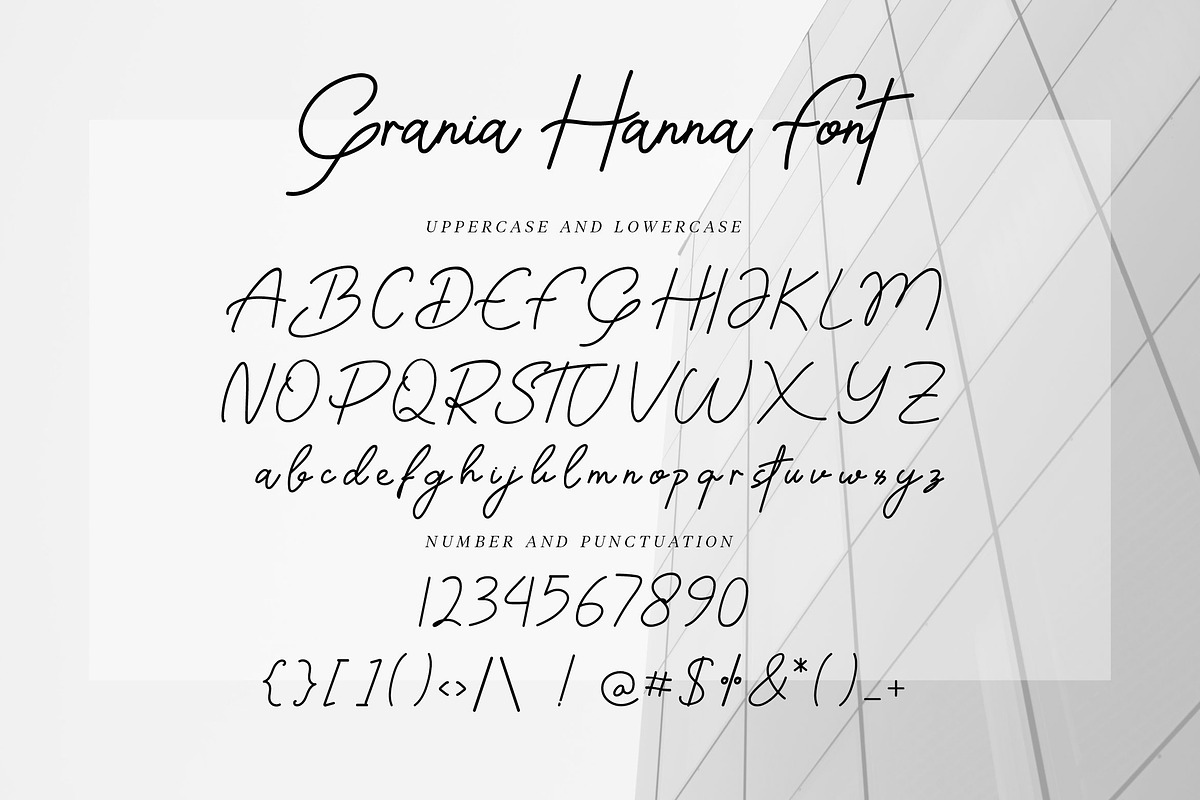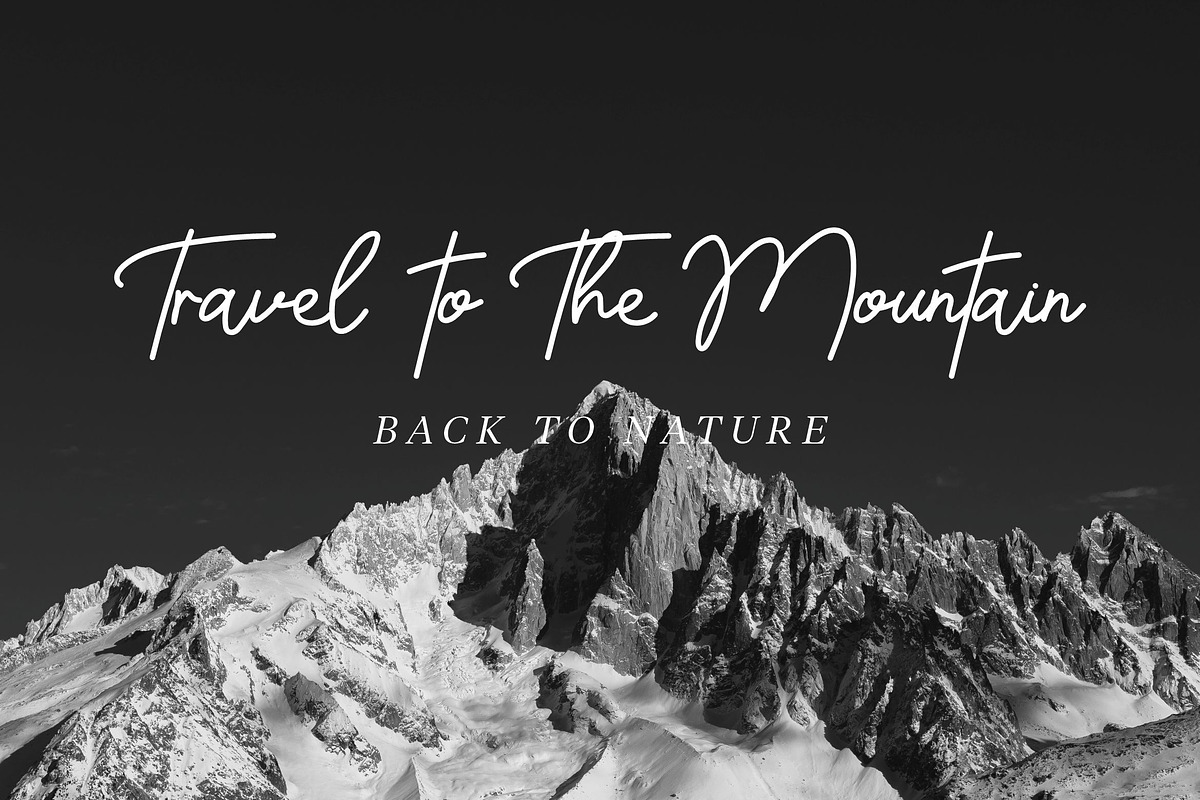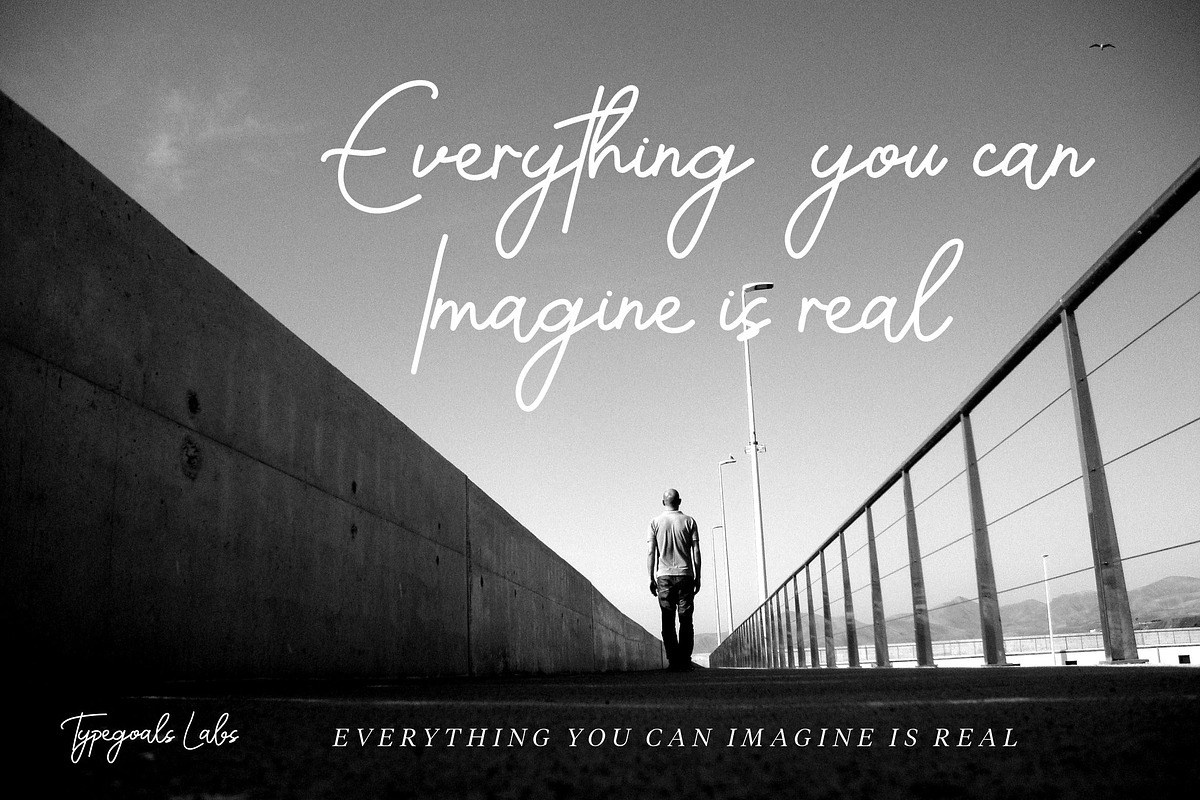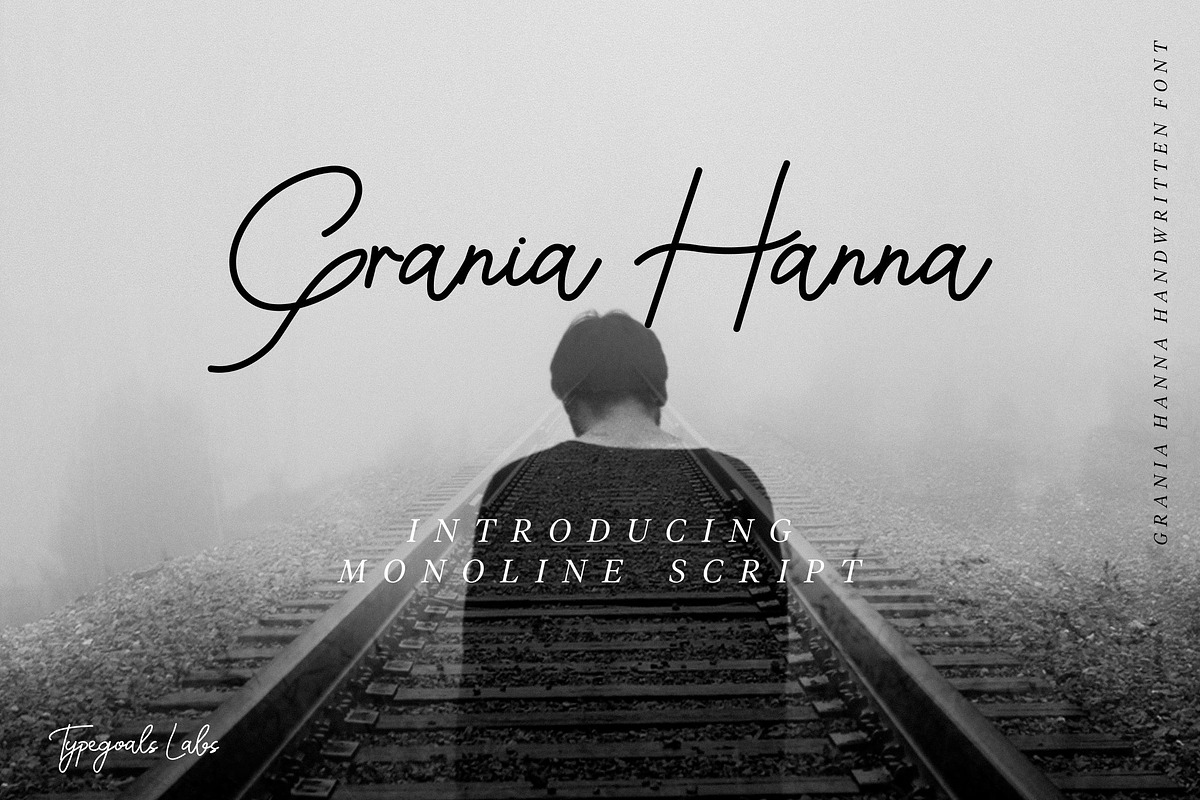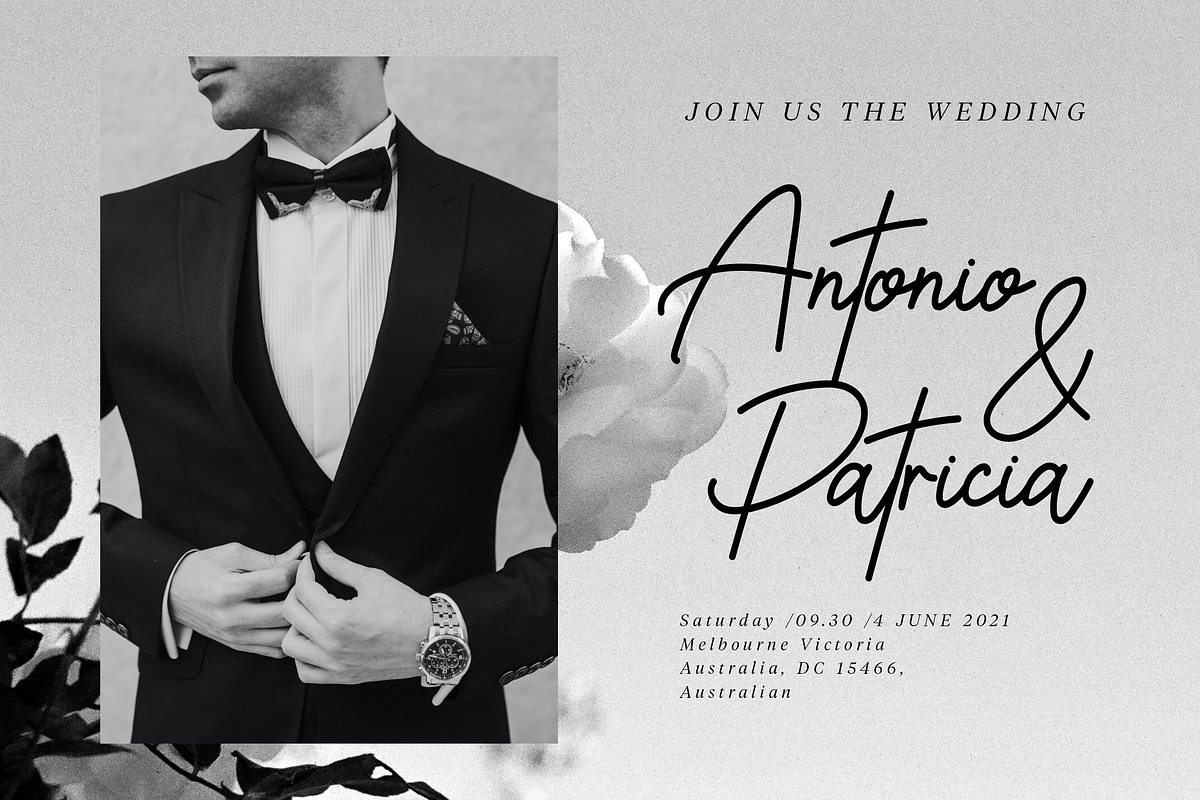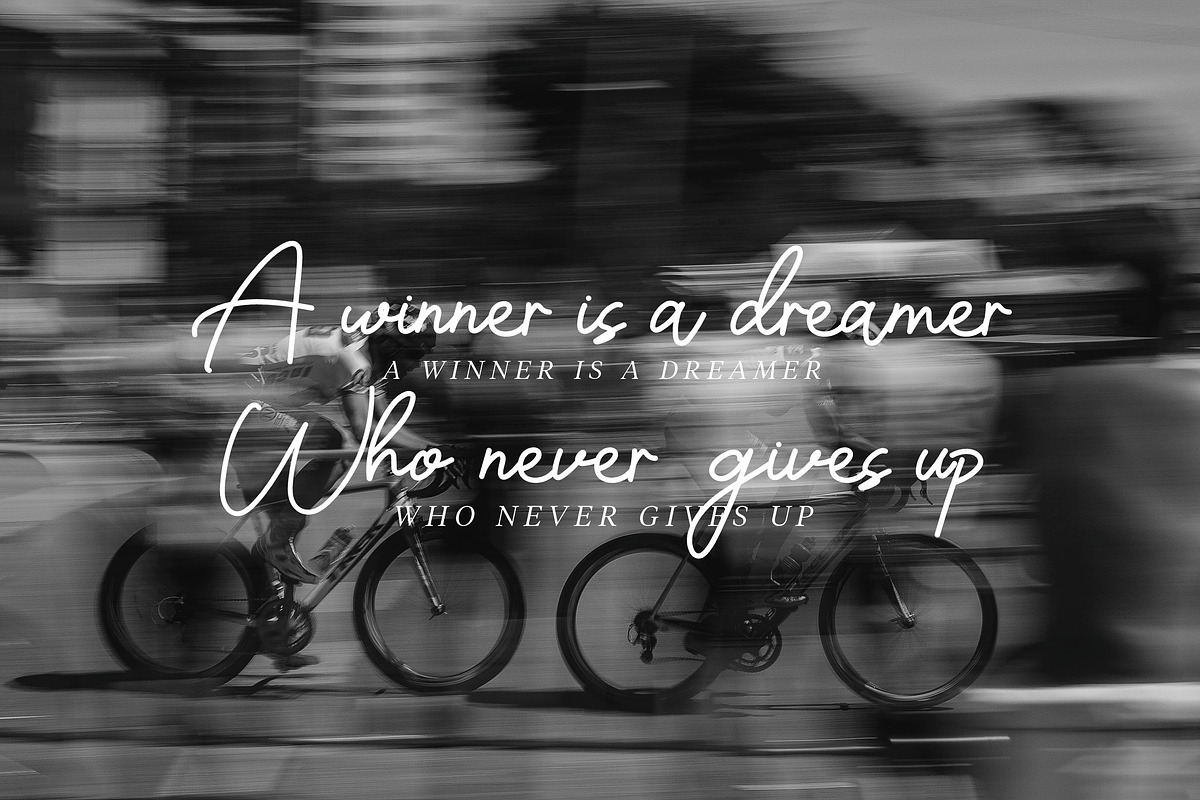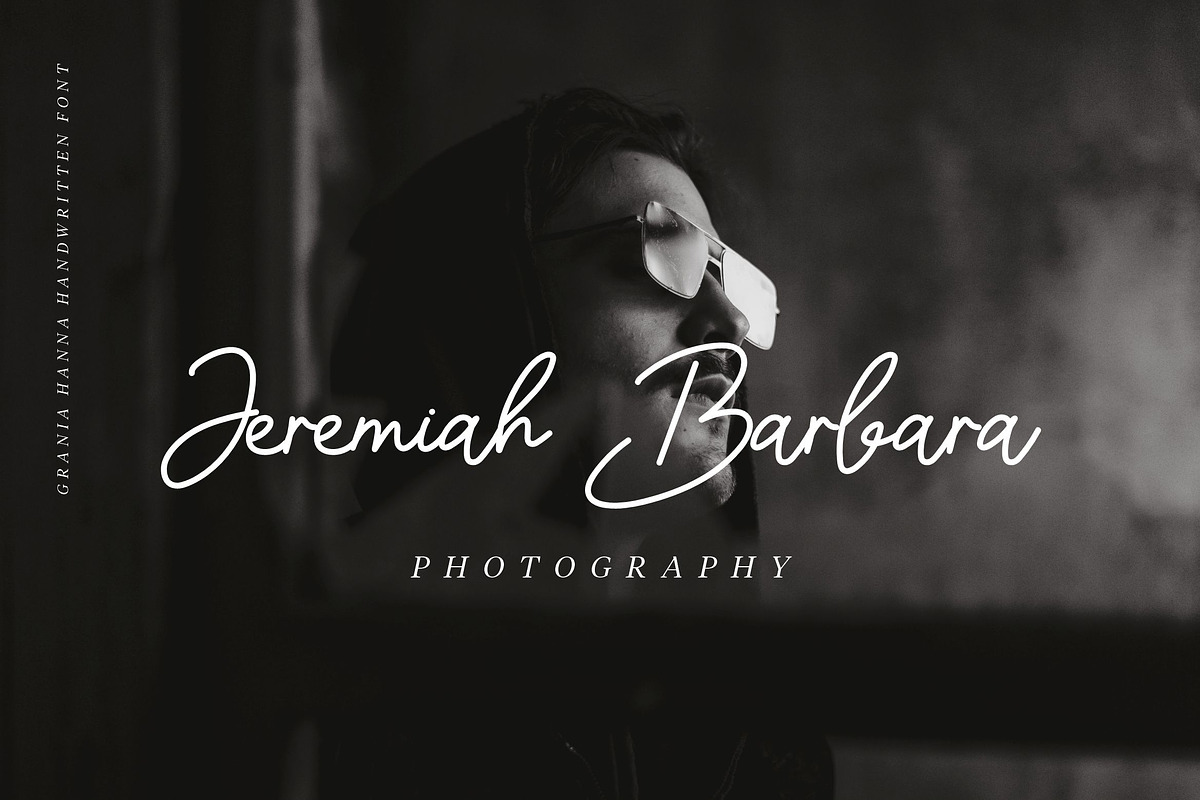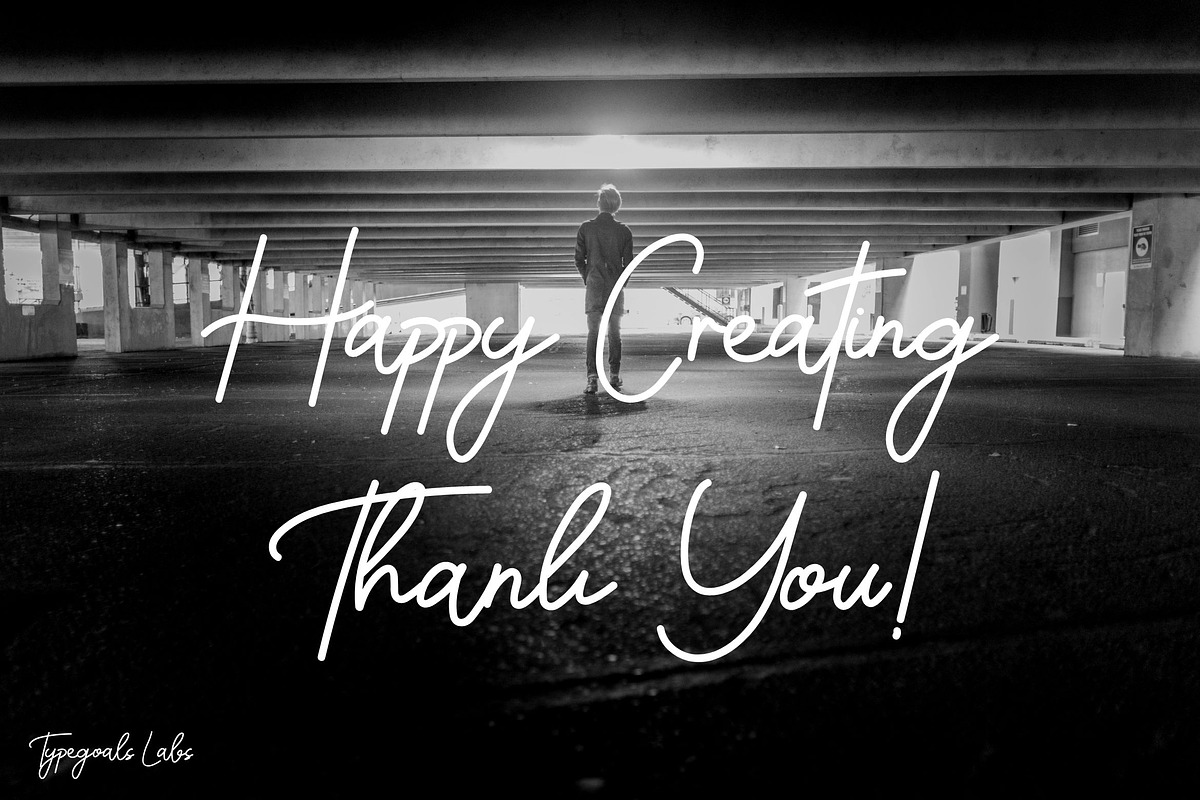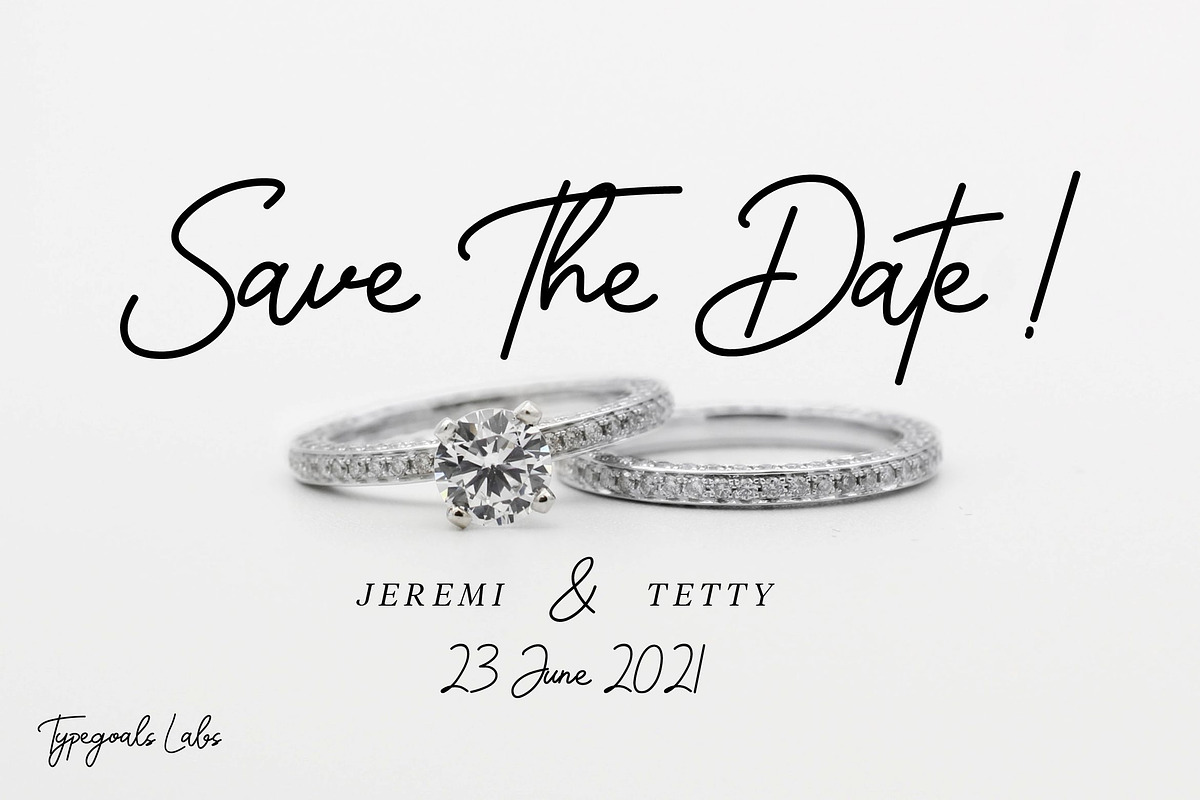
Grania Hanna
Grania Hanna Script consisting of a fashionable sophisticated signature-style script with its own unique curves and an elegant inky flow.
Grania Hanna Script is perfect for branding projects, logo, wedding designs, social media posts, advertisements, product packaging, product designs, label, photography, watermark, invitation, stationery and any projects that need handwriting taste.